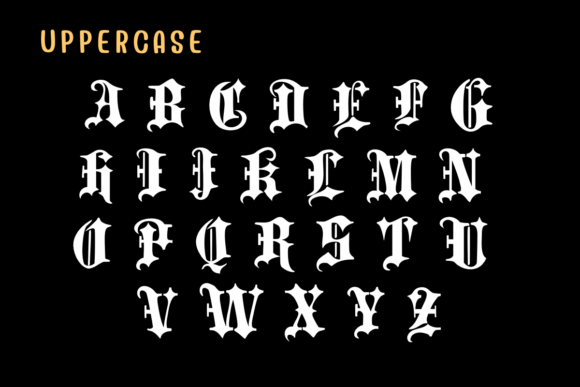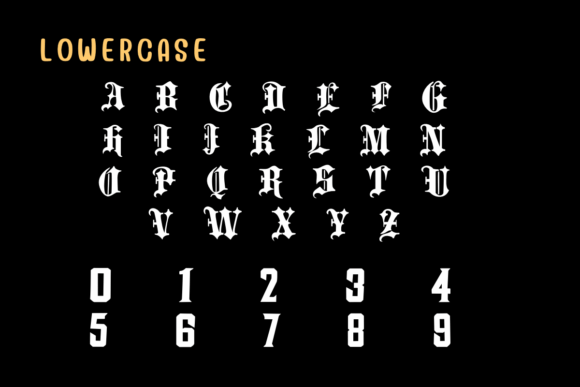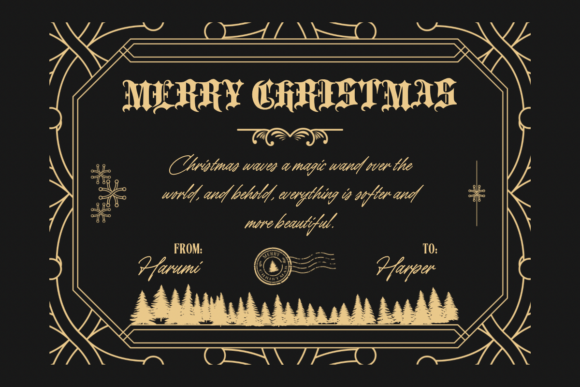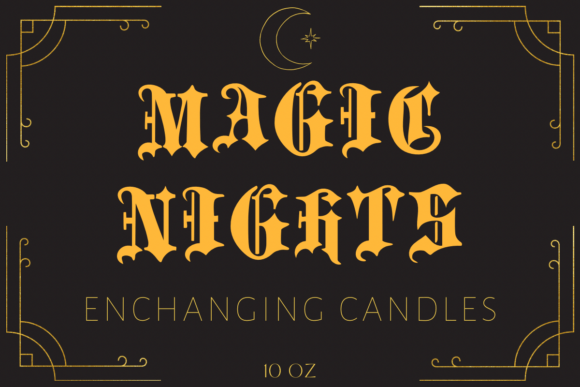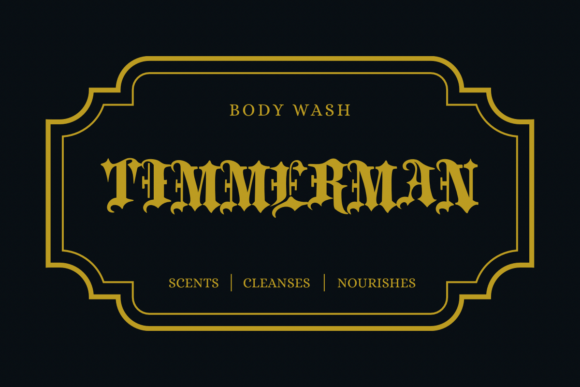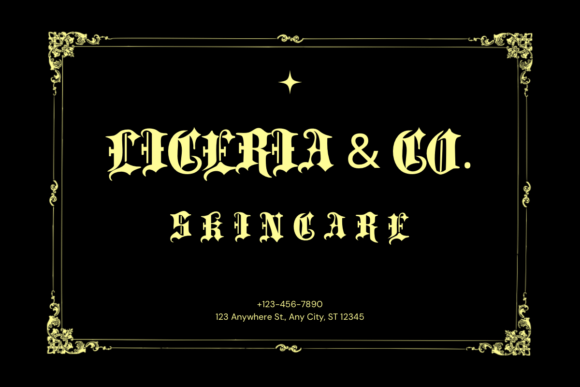
Unleash the Dark Elegance: Exploring the Emilia Luck Font
In the realm of typography, fonts play a pivotal role in conveying the essence and mood of a design. For those seeking a dramatic and bold statement, the Emilia Luck Font stands out as a remarkable choice. This stunning blackletter font is imbued with gothic elegance and medieval power, making it perfect for a variety of creative projects. In this article, we’ll dive deep into the characteristics, uses, and benefits of the Emilia Luck Font, guiding designers and crafters on how to harness its dark, bold character.
The Essence of Emilia Luck Font
Emilia Luck is a dramatic blackletter font that exudes gothic elegance and medieval power. Its design is characterized by sharp serifs and historic flourishes, which lend it an air of mystery and sophistication. The font’s bold and commanding presence makes it an ideal choice for projects that demand a strong visual impact. Whether you’re working on branding, tattoo design, logos, or any other creative endeavor, Emilia Luck is sure to make a lasting impression.
Key Features of Emilia Luck Font
- Dramatic Blackletter Design: Emilia Luck boasts a classic blackletter style with a dramatic flair, perfect for creating striking and memorable designs.
- Gothic Elegance: The font’s gothic undertones add an element of elegance and sophistication, making it suitable for high-end branding and design projects.
- Sharp Serifs: The sharp serifs provide a crisp and clean finish, enhancing the font’s readability and visual appeal.
- Historic Flourishes: Emilia Luck’s historic flourishes add a touch of authenticity and heritage, making it perfect for designs that require a sense of tradition and legacy.
Applications of Emilia Luck Font
The versatility of Emilia Luck Font makes it suitable for a wide range of applications. Here are some of the most popular uses:
- Branding: Create a bold and memorable brand identity with Emilia Luck. Its dramatic design ensures that your brand stands out and leaves a lasting impression.
- Tattoo Design: For tattoo artists and enthusiasts, Emilia Luck offers a unique and striking style that can add depth and meaning to tattoo designs.
- Logos: Design stunning logos that command attention and convey power and elegance. Emilia Luck’s bold character makes it perfect for logos that need to make a statement.
- Typography Design: Experiment with Emilia Luck in various typography projects, from posters and flyers to packaging and advertising materials.
Benefits of Using Emilia Luck Font
Choosing Emilia Luck Font for your design projects comes with several benefits:
- Unique Aesthetic: Emilia Luck offers a distinctive and stylish aesthetic that sets it apart from more common fonts.
- High Versatility: The font’s versatility makes it suitable for a wide range of design projects, from digital to print.
- Ease of Use: Despite its intricate design, Emilia Luck is easy to use and works well across various design platforms.
- Timeless Appeal: The font’s classic design ensures that your work remains timeless and relevant, avoiding the fleeting nature of trendy fonts.
To make the most of Emilia Luck Font, consider the following tips:
- Pair with Complementary Fonts: Combine Emilia Luck with simpler fonts to create contrast and enhance readability.
- Experiment with Sizes: Play with different font sizes to emphasize certain words or phrases and create visual hierarchy.
- Utilize Flourishes: Take advantage of the font’s historic flourishes to add elegance and detail to your designs.
- Consider Color: Choose colors that complement the font’s dark and bold character. Deep blacks, rich reds, and metallic tones can enhance the overall impact.
Emilia Luck Font is a powerful tool for designers and crafters looking to add a touch of gothic elegance and medieval power to their work. Its dramatic blackletter design, sharp serifs, and historic flourishes make it perfect for a variety of projects, from branding and tattoo design to logos and typography. By understanding its features, applications, and benefits, you can unlock the full potential of Emilia Luck and create stunning designs that leave a lasting impression.